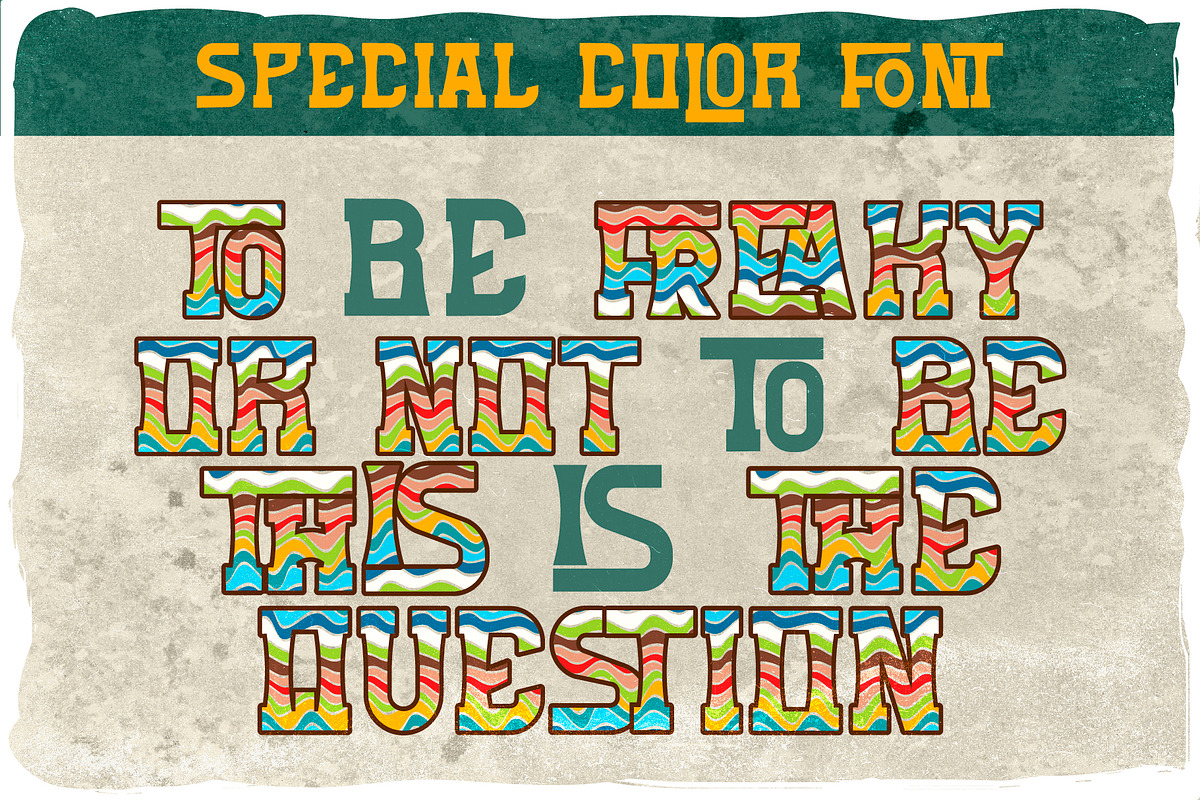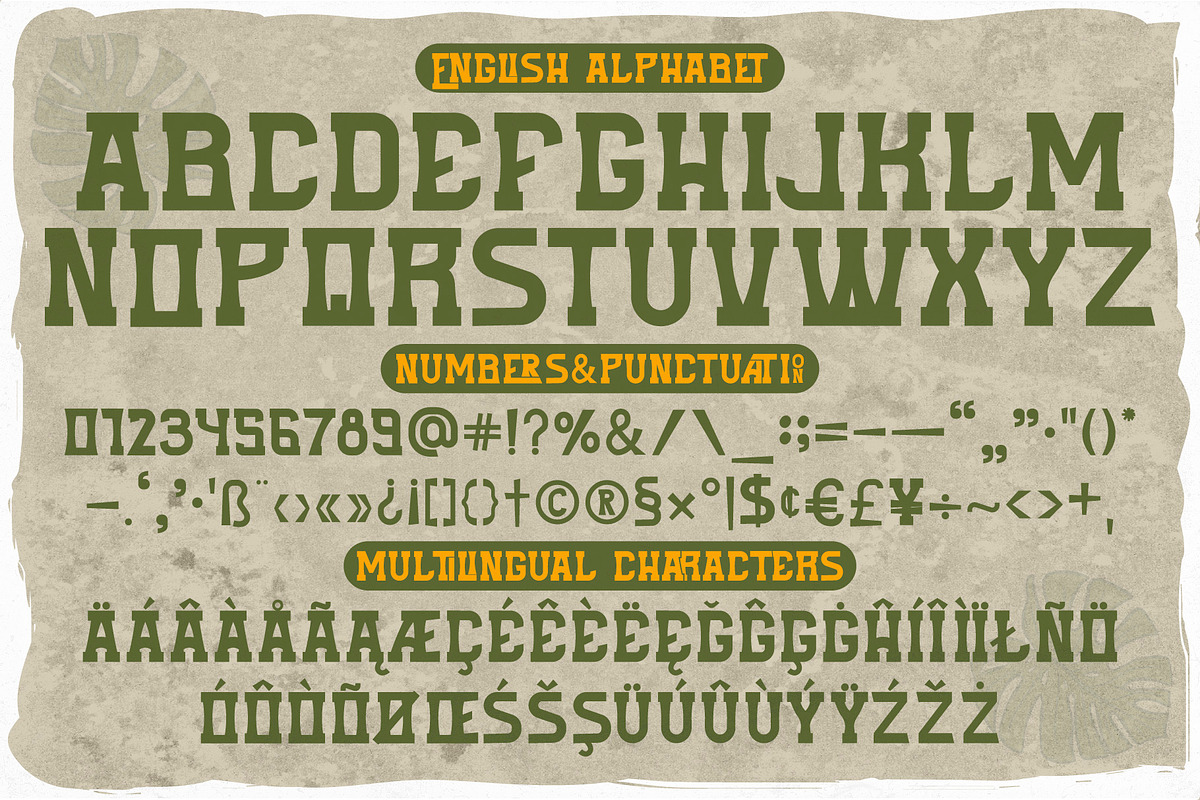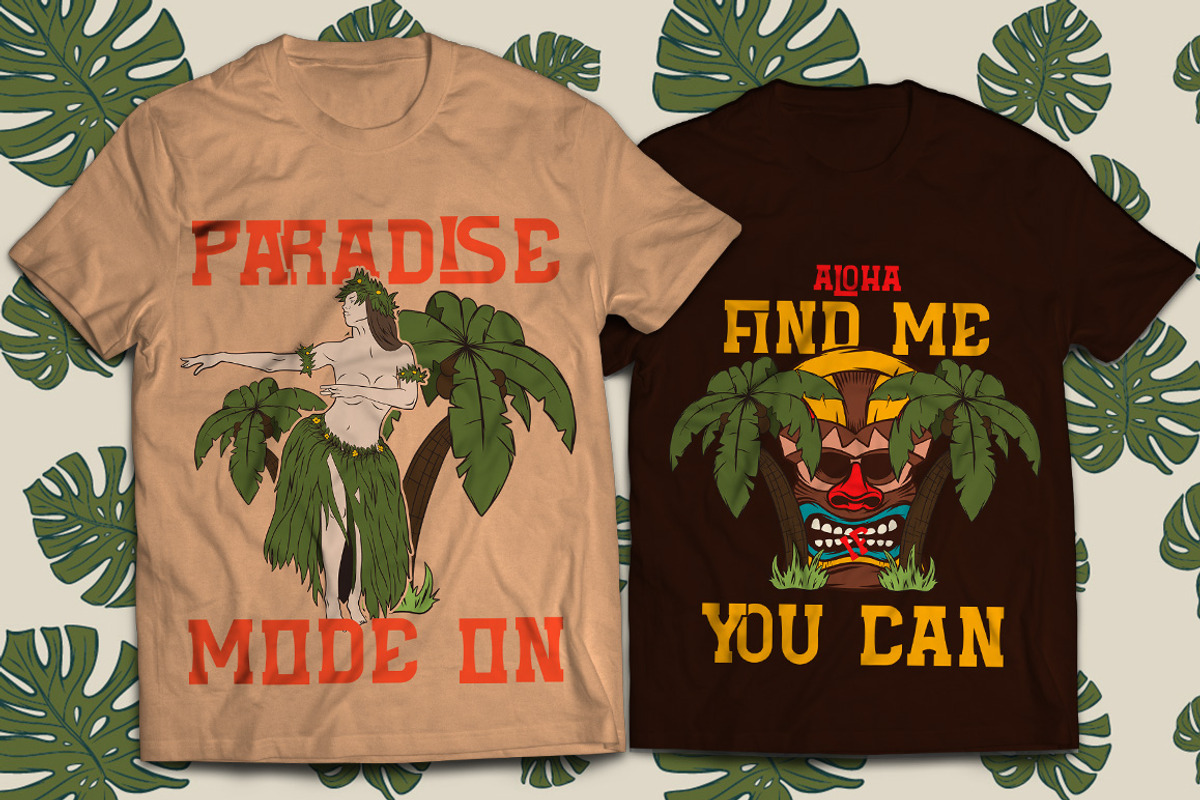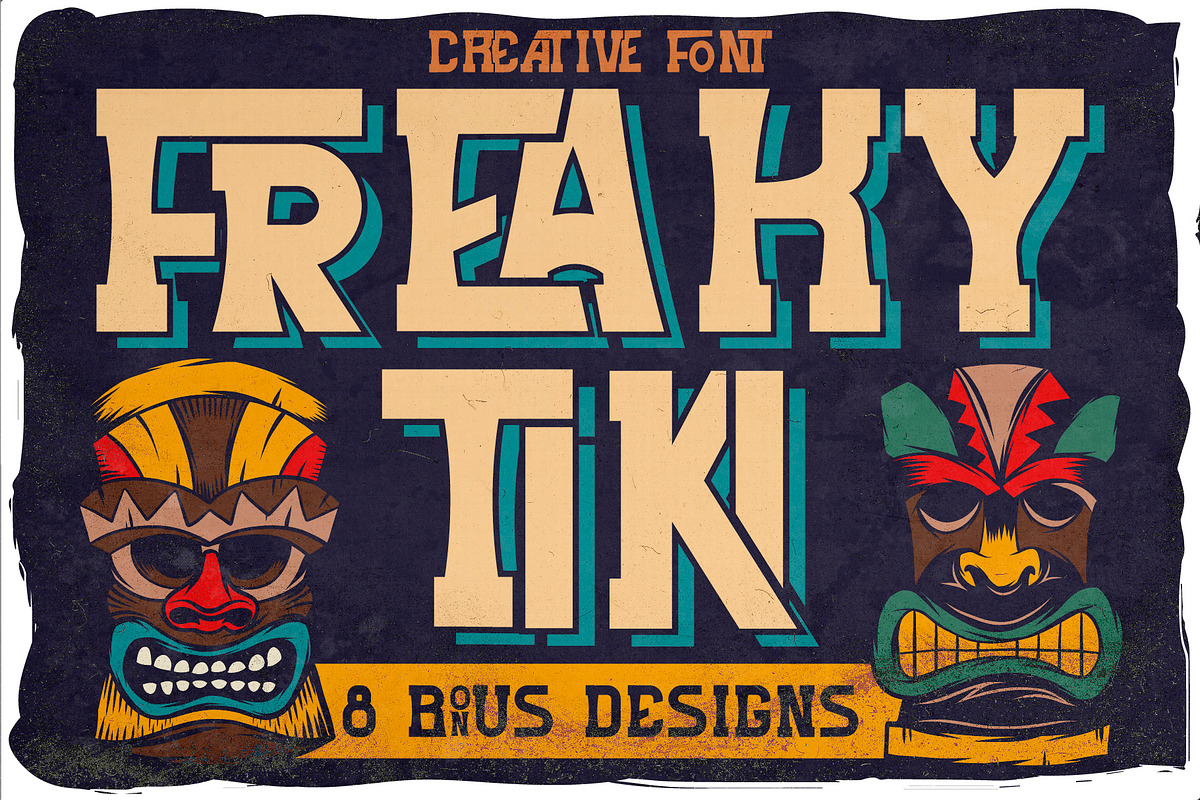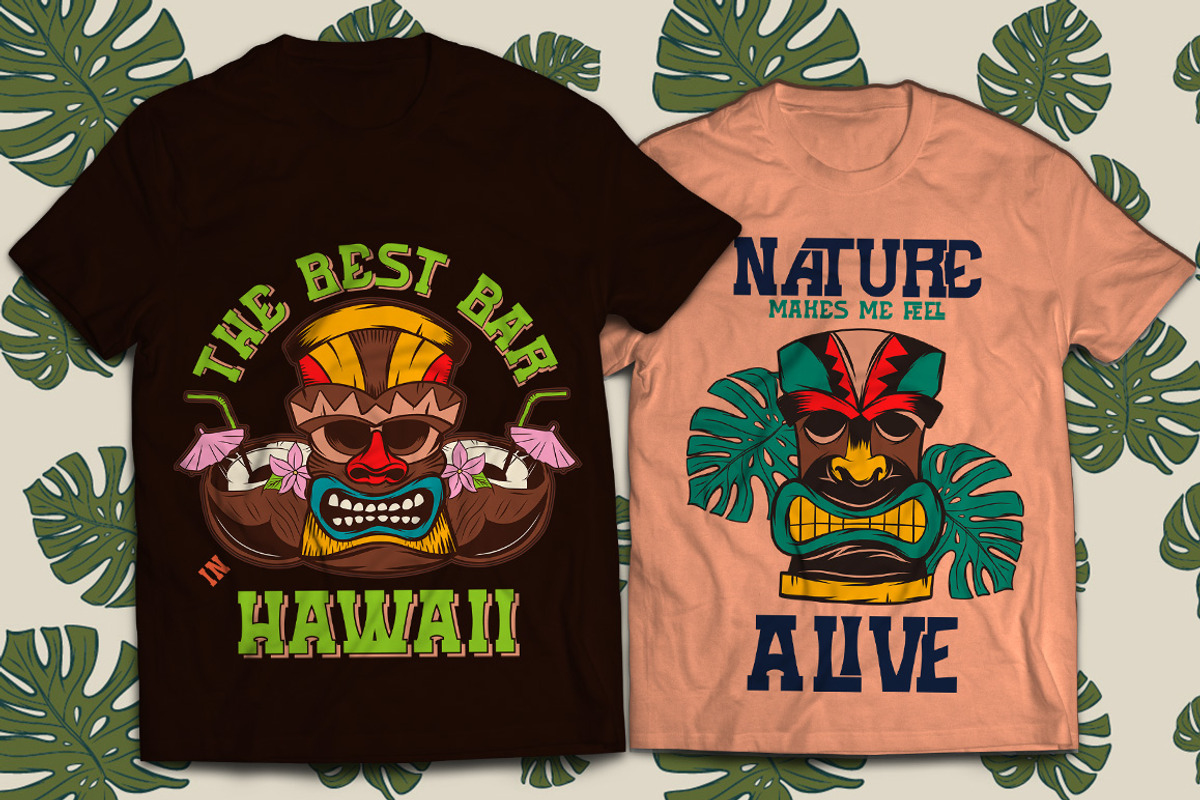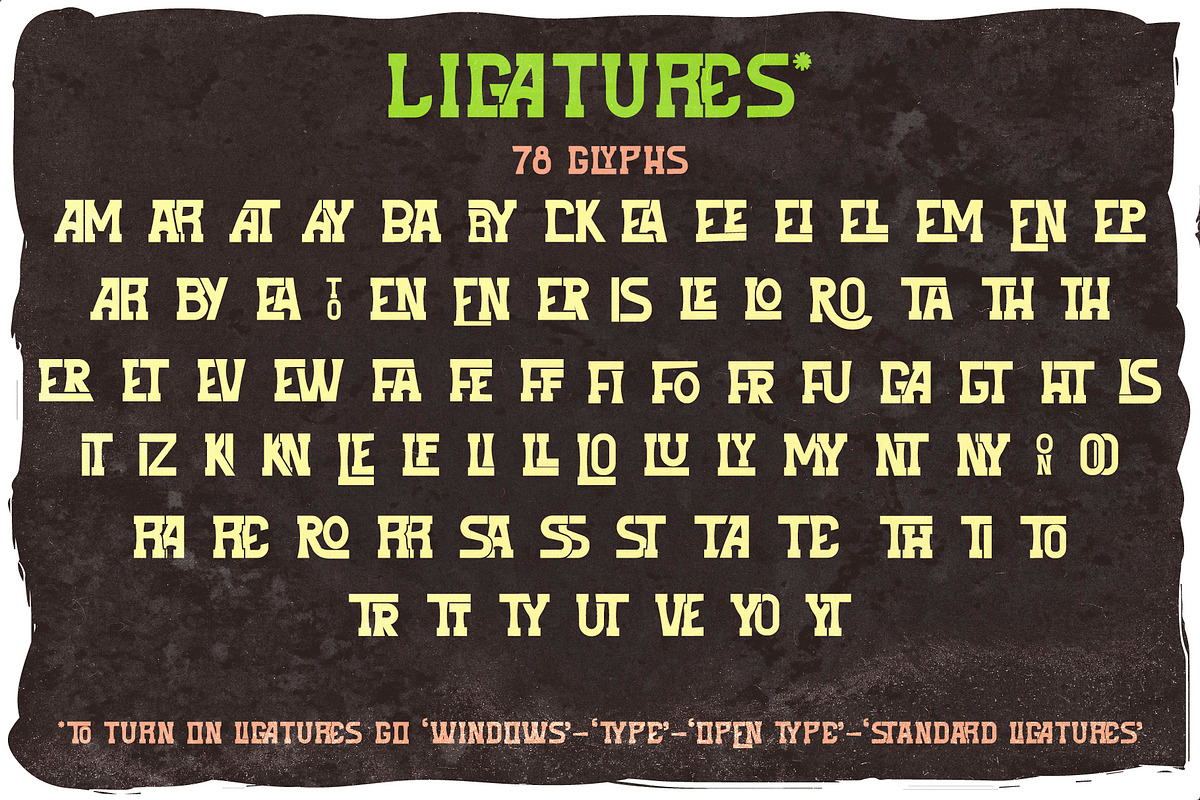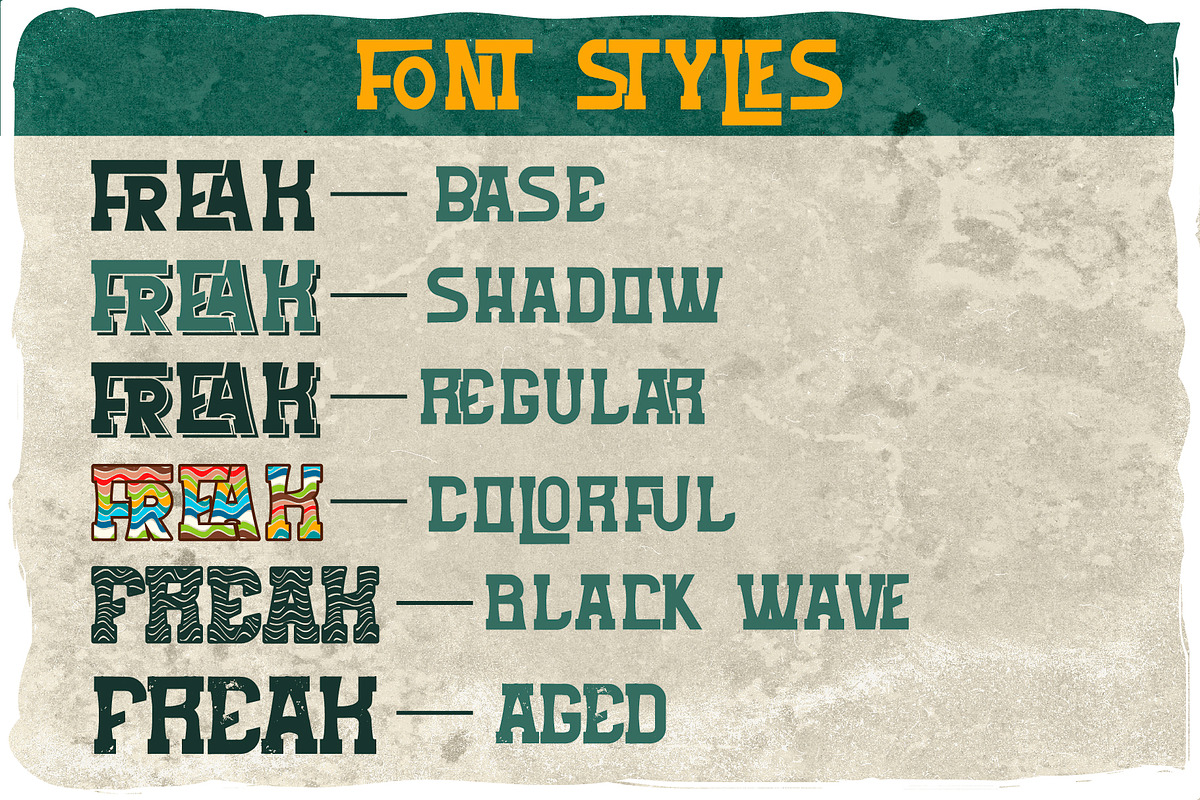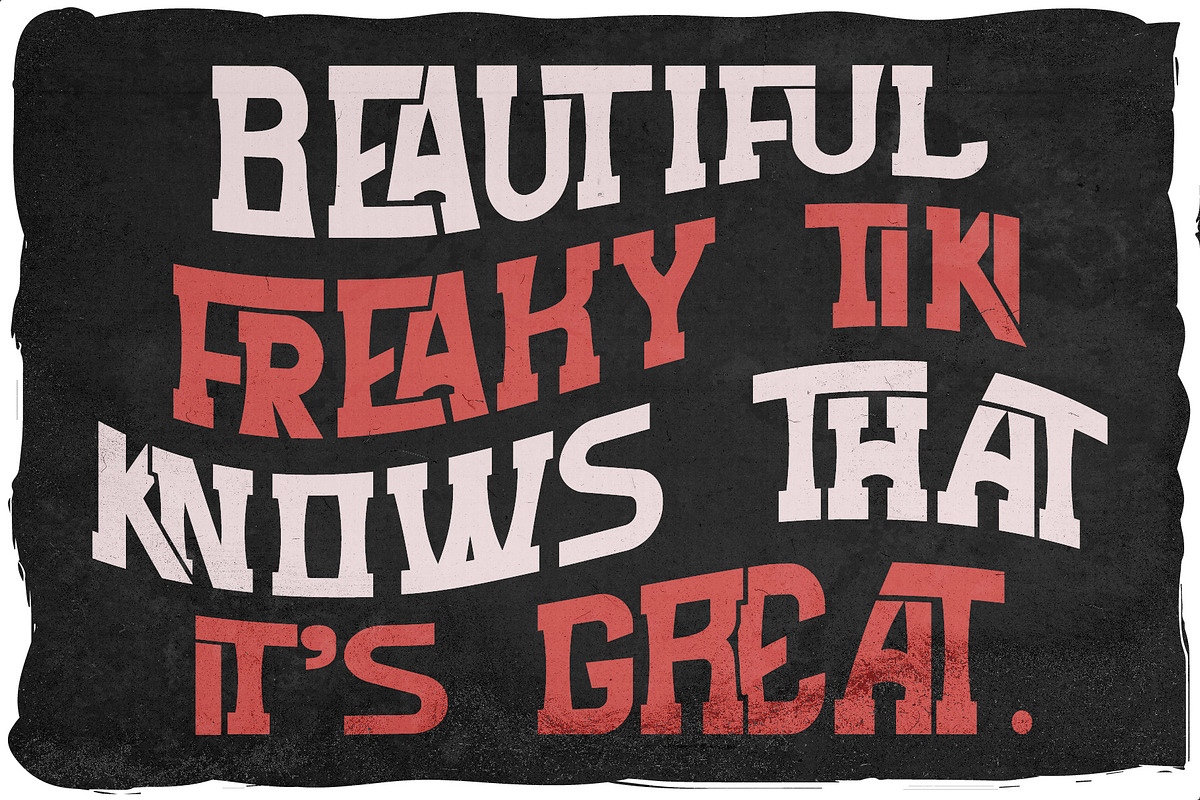
Freaky tiki + 8 bonus designs
Introducing my newest font called "Freaky Tiki". It was inspired by the Hawaiian tiki masks and their culture. It has wide language support of multilingual characters (check out all available characters in previews). Bonus 8 t-shirt designs..This font will look good on any vintage-styled designs like a poster, T-shirt, label, logo, etc.
- A lot of additional symbols, alternative characters, and multilingual support.
You can use the font and the elements of the set for the creation of any design for your purposes with minimal loss of time. The designs can be used for patches, labels, badges, signs, symbols, stickers, cups, pins, bags, caps, apparel, products for men, packaging design, and much more.
The old-school style badges will be suitable for the creation of promotional materials for the advertisement of companies, events, clubs, stores, shops etc.